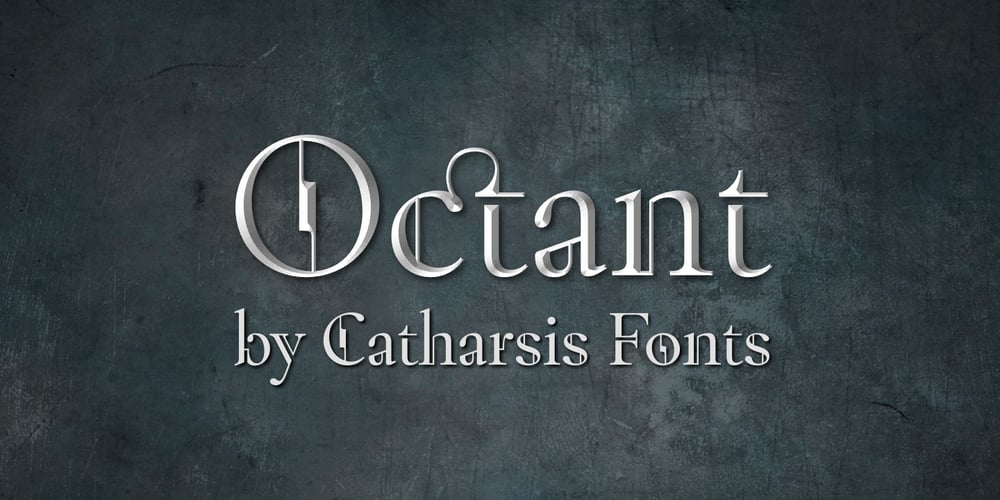
Octant
Octant font
Octant Font Family was designed by Christian Thalmann and published by Catharsis Fonts. Octant contains 2 styles and family package options. Octant is an original display typeface drawing inspiration from Victorian-age steel and brass engineering, as well as from blackletter typography. Despite its many innovative departures from traditional letter architecture at the detail level, its overall shape is based on the familiar timeless proportions of humanist serif tradition, which renders it easily legible. While Octant shines in display roles, it also performs well in short texts such as poetry or block quotes. Apart from serving as a fresh alternative to blackletter, it evokes hand-crafted metalwork, daring feats of engineering and innovation, and adventurous journeys on airships and sailboats. Thanks to its unique and unmistakable look, it delivers a memorable impact in any role. Octant comes with extensive language support and a generous collection of ligatures. For ease of use in typographically unsavvy applications (such as PowerPoint), the distribution includes an alternate version of the font (“Octant Ligatures”) in which all ligatures are encoded as standard rather than discretionary. Acknowledgements: Many thanks to the helpful folks on the Typophile.com forums, whose feedback and support were crucial in developing Octant from a few doodles to a mature font! Special thanks to Rainer Scheichelbauer from glyphsapp.com for helping with localization and troubleshooting. Spacing and kerning by Igino Marini’s iKern service. This font is dedicated to Simone.